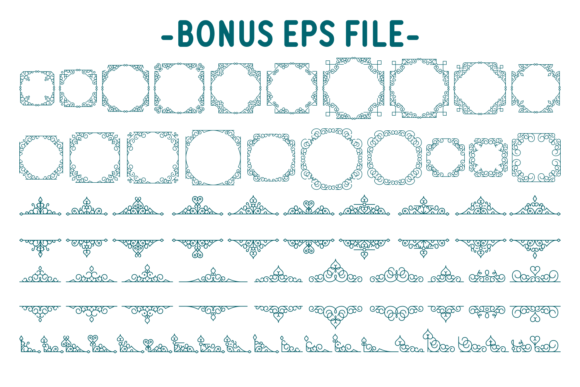
Christmas Frameline Font
Christmas Frameline is a useful and distinct dingbats font. Whatever the topic, this font will be a wonderful asset to your font library, as it has the potential to enhance any creation.